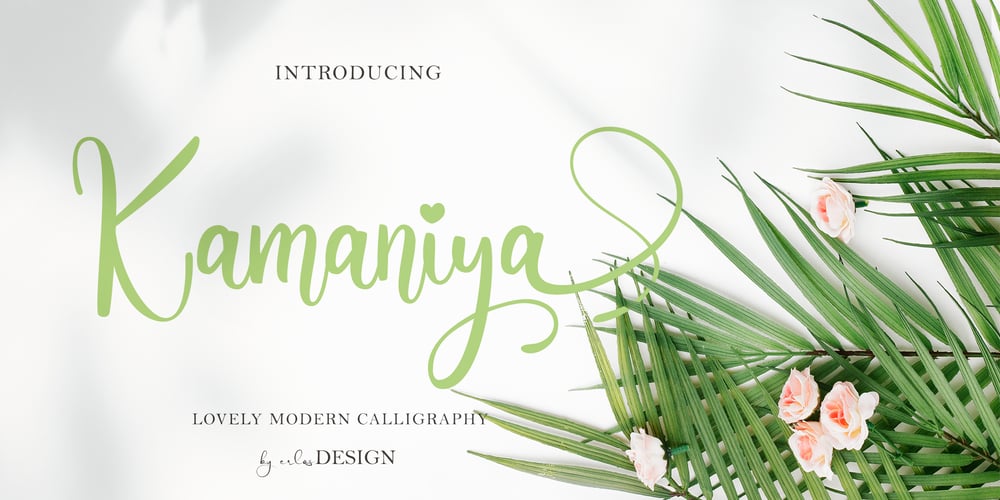
Kamaniya Font Family was designed by Erlangga Suherman and published by ErlosDesign. Kamaniya contains 1 styles and family package options. Kamaniya is a lovely and magical script font, with characters that dance along the baseline. It has a casual, yet elegant touch. This font is PUA encoded which means you can access all of the glyphs and swashes with ease!Kamaniya Font includes a full set of lovely uppercase and lowercase letters, multilingual symbols, numerals, punctuation and ligatures. Also it includes: long lowercase beginning and ending swashes.The font has a smooth texture, so it would be perfect for your design.The file you will get is:• Works on PC & Mac• Simple installation• Encoded PUA Character – Can be accessed completely without additional design software.Enjoy!